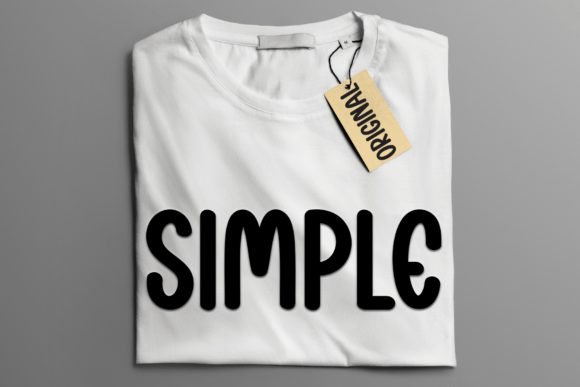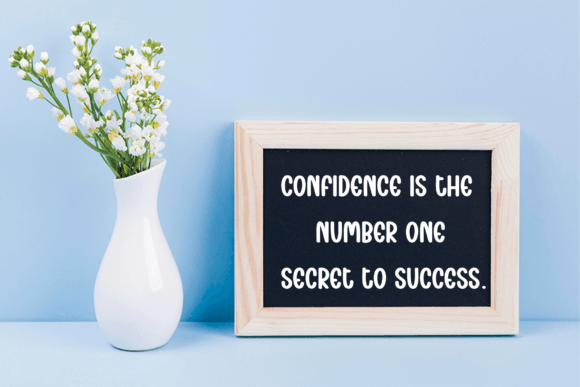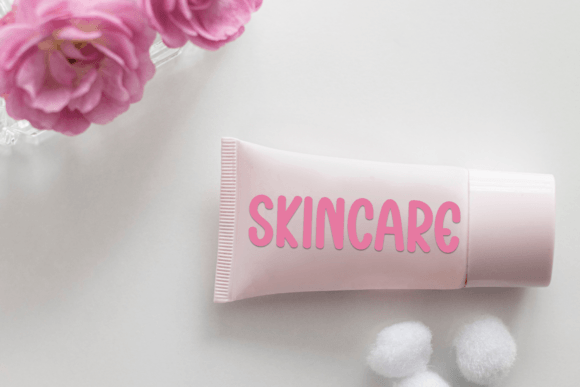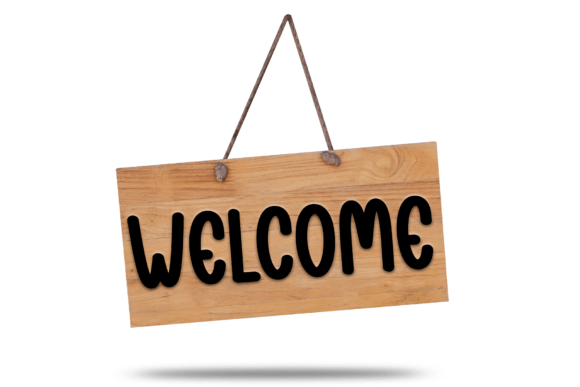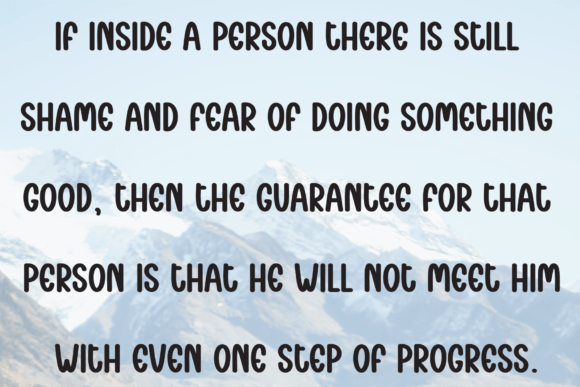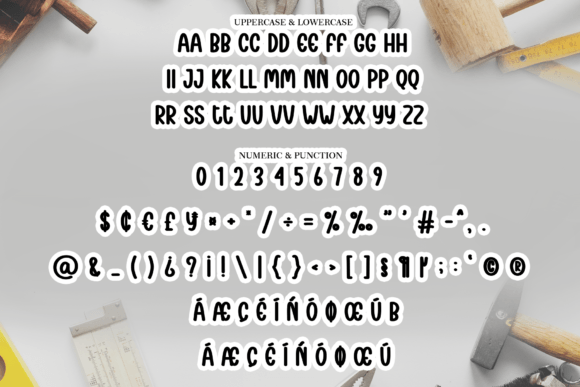
Introducing Equipment Font: The Sweet and Friendly Handwritten Display Font
Are you looking for a font that can add a touch of warmth and personality to your designs? Look no further than Equipment Font, a sweet and friendly handwritten display font that’s perfect for creating eye-catching wedding invitations, cards, and other designs that need a fun and playful twist.
What Makes Equipment Font So Special?
Equipment Font is a unique and charming font that’s designed to bring a sense of joy and whimsy to your designs. Its handwritten style gives it a personal and approachable feel, making it ideal for designs that require a touch of warmth and personality. Whether you’re creating wedding invitations, birthday cards, or social media graphics, Equipment Font is the perfect choice.
Key Features of Equipment Font
- Cute and Fun: Equipment Font is a playful and charming font that’s designed to add a touch of fun to your designs.
- Handwritten Style: Its handwritten style gives it a personal and approachable feel, making it perfect for designs that require a touch of warmth and personality.
- Display Font: Equipment Font is a display font, making it perfect for headlines, titles, and other design elements that need to stand out.
- Versatile: Equipment Font is a versatile font that can be used for a wide range of designs, from wedding invitations and cards to social media graphics and more.
Equipment Font is a perfect choice for designers and crafters who want to add a personal touch to their designs. Whether you’re creating digital designs or handmade crafts, Equipment Font is a great way to add a touch of personality and whimsy to your work. Its unique and charming style makes it perfect for:
- Wedding Invitations: Add a touch of romance and whimsy to your wedding invitations with Equipment Font.
- Cards: Create personalized and charming cards for birthdays, holidays, and other special occasions.
- Social Media Graphics: Add a touch of personality to your social media graphics with Equipment Font.
- Handmade Crafts: Use Equipment Font to add a personal touch to your handmade crafts, such as scrapbooking, journaling, and more.
Why Choose Equipment Font?
There are many fonts to choose from, but Equipment Font stands out for its unique and charming style. Here are just a few reasons why you should choose Equipment Font for your next design project:
- Unique Style: Equipment Font has a unique and charming style that’s sure to stand out in any design.
- Easy to Read: Despite its playful style, Equipment Font is easy to read and understand, making it perfect for designs that require a clear and concise message.
- Versatile: Equipment Font is a versatile font that can be used for a wide range of designs, from digital designs to handmade crafts.
- High-Quality: Equipment Font is a high-quality font that’s designed to deliver exceptional results in any design.
In conclusion, Equipment Font is a sweet and friendly handwritten display font that’s perfect for adding a touch of warmth and personality to your designs. Its unique and charming style makes it perfect for wedding invitations, cards, social media graphics, and other designs that require a fun and playful twist. Whether you’re a designer or crafter, Equipment Font is a great choice for any design project.